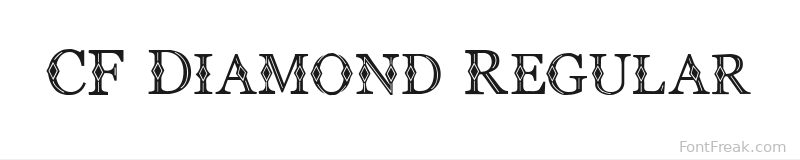
CF Diamond Regular
About CF Diamond Regular
CF Diamond Regular is a striking display font designed by Cloutierfontes, classified as a decorative typeface. This font stands out with its unique combination of elegant curves and sharp edges, creating a visually captivating appearance. The stroke weight is moderately bold, providing a strong presence while maintaining a sense of sophistication. The contrast between thick and thin strokes adds depth, making it suitable for a variety of design applications. The spacing of the characters is thoughtfully arranged, ensuring readability without compromising its decorative appeal.
Best suited for creative projects, CF Diamond Regular is ideal for wedding invitations, where its elegant design can enhance the romantic theme. It can also shine in movie posters, providing a dramatic flair that captures attention. Restaurant menus can benefit from its stylish look, offering an upscale feel that complements fine dining experiences. Additionally, this font is perfect for branding materials, such as logos or business cards, helping small business owners convey a distinct identity.
The target audience for CF Diamond Regular includes graphic designers seeking to elevate their projects, small business owners aiming for a memorable brand presence, and content creators looking for a unique font to enhance their visual storytelling. The versatility of this font makes it an excellent choice for anyone wanting to make a bold statement in their designs.
What sets CF Diamond Regular apart is its ability to balance elegance with a modern touch. It can easily capture the essence of any project while remaining versatile enough to fit various themes. Whether used in print or digital media, the CF Diamond Regular font free download offers designers a valuable tool to elevate their creative work. Embrace its distinctive style and make your designs stand out in a crowded marketplace.